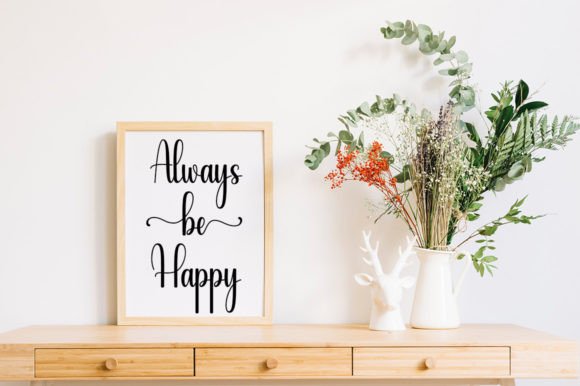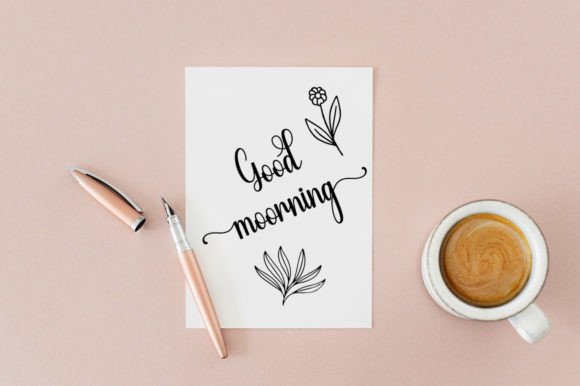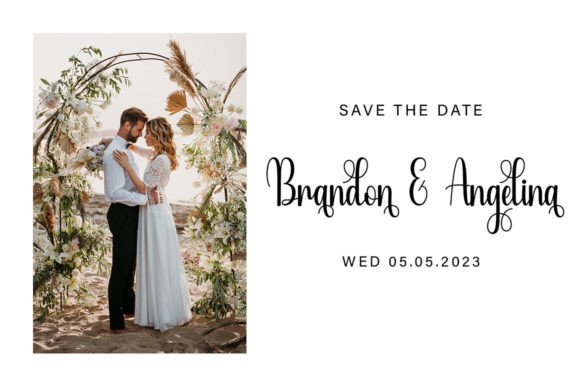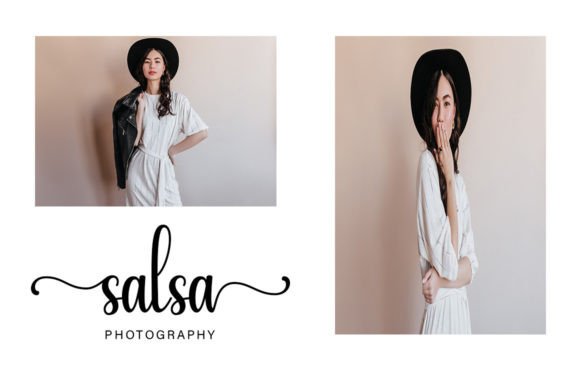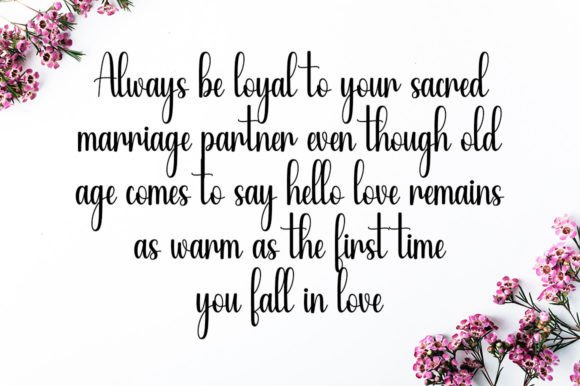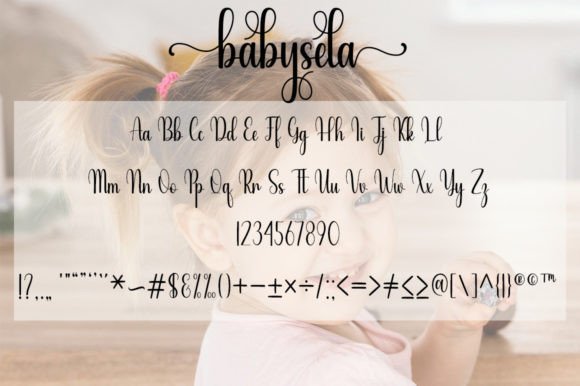
Introduction to Baby Sela Font
Baby Sela is a beautiful and charming handwritten font that evokes feelings of romance and sweetness.
Its flowing curves and gentle strokes create an intimate and personal touch, perfect for wedding invitations, love letters, and any project that requires a touch of warmth and tenderness This font is PUA encoded which means you can access all glyphs and swashes effortlessly.